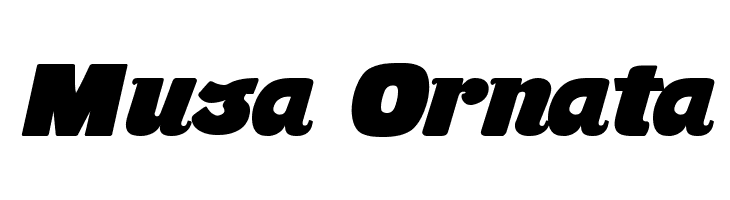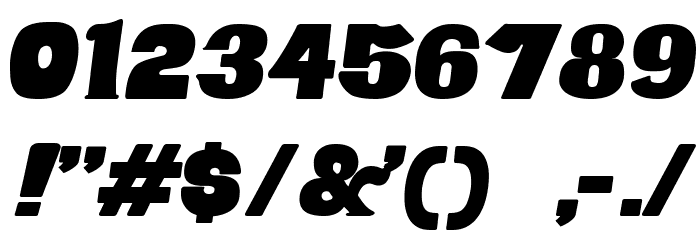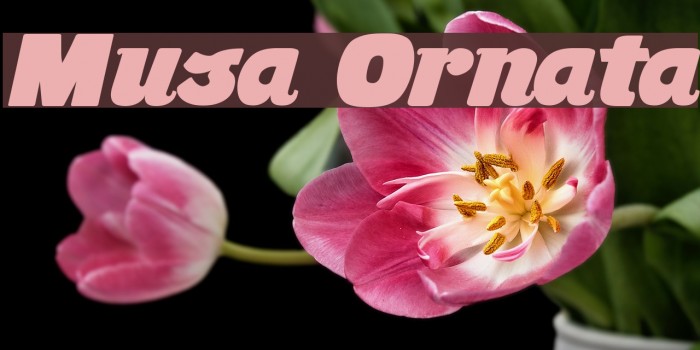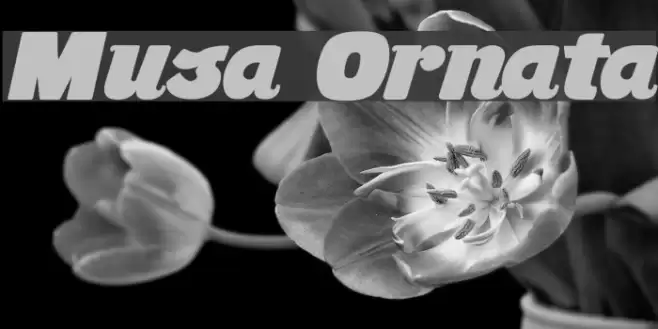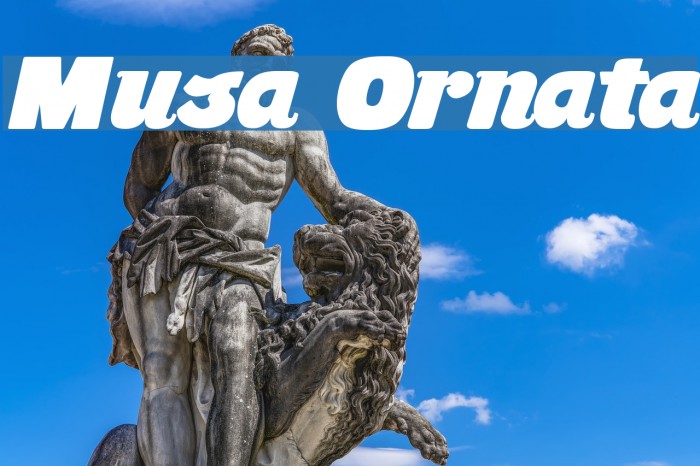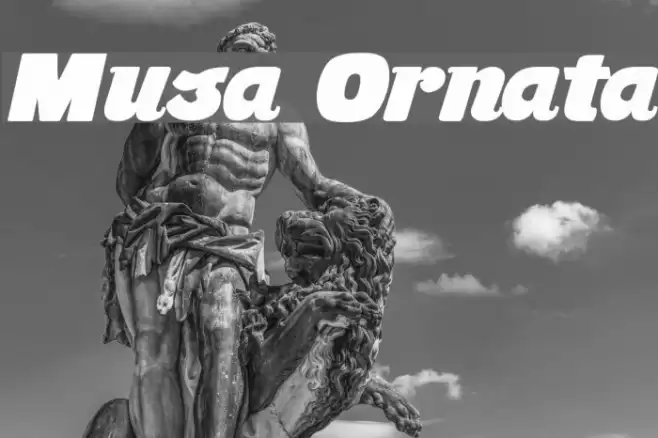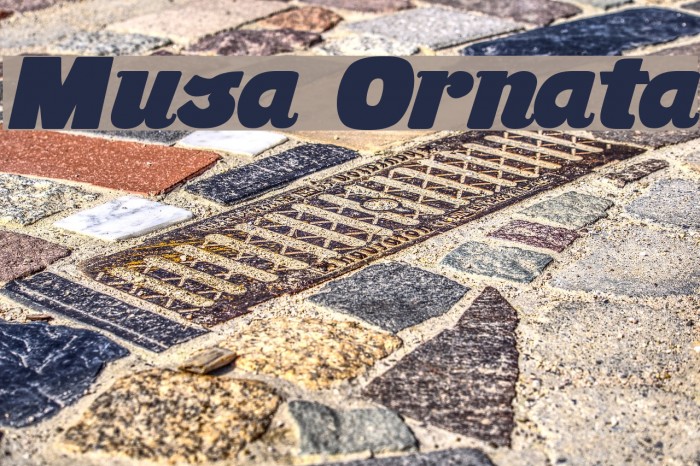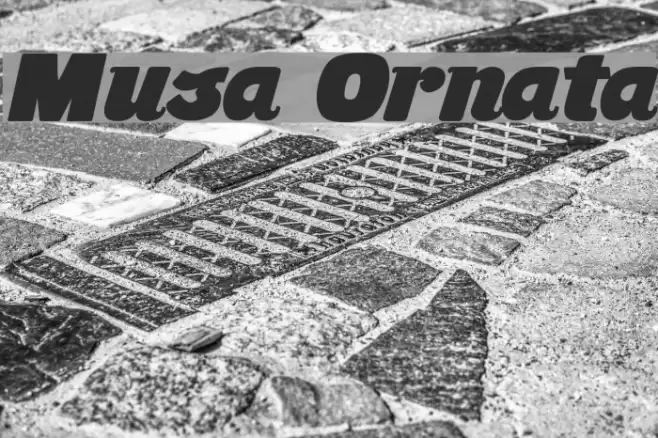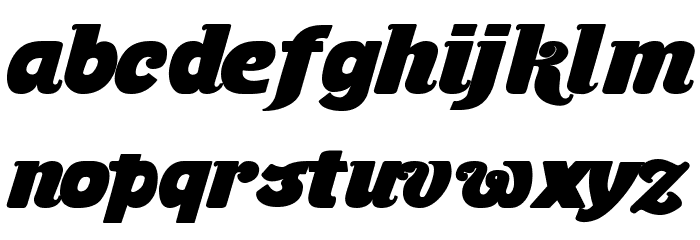
Musa Ornata Font
Musa Ornata Description
This bold and dynamic font features thick, heavy strokes with a strong presence. The characters are slightly slanted, giving a sense of movement and energy. The uppercase letters are robust and commanding, while the lowercase letters maintain a consistent weight and style. The numerals are equally bold, ensuring visibility and impact. Special characters are designed with the same boldness, making them stand out. The overall appearance is modern and assertive, suitable for making a statement.
| Proposed Projects | Ideal for headlines, posters, branding, and any project requiring a strong visual impact. |